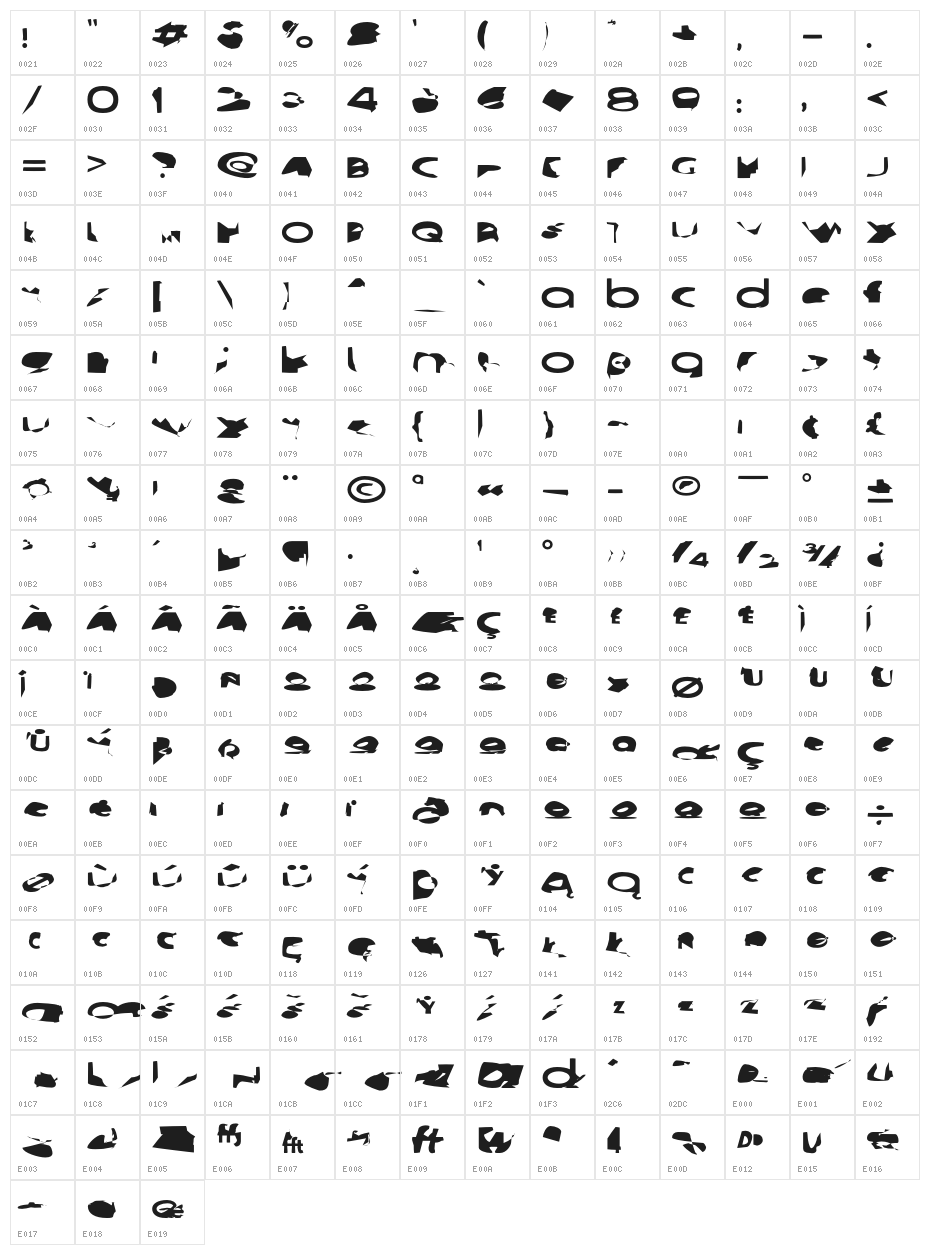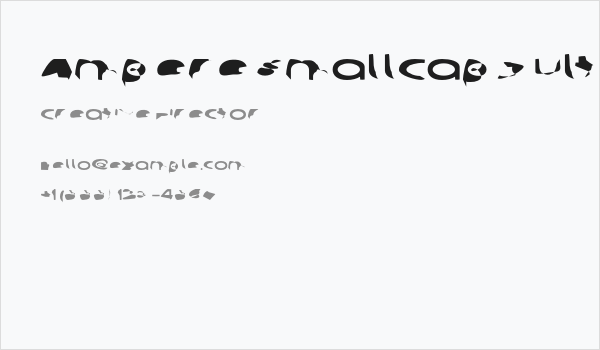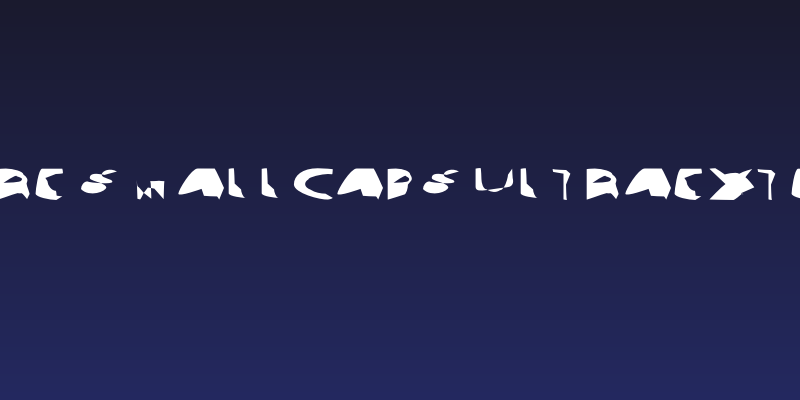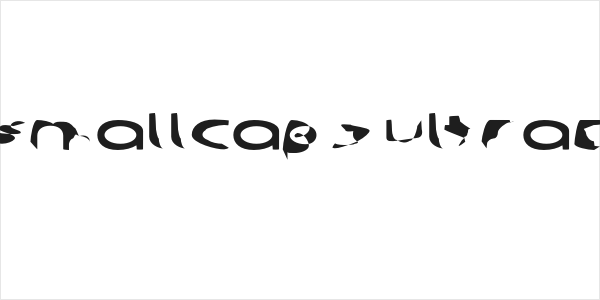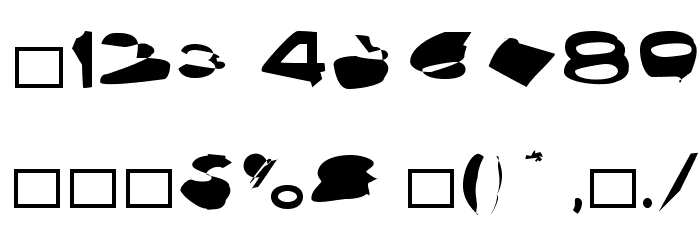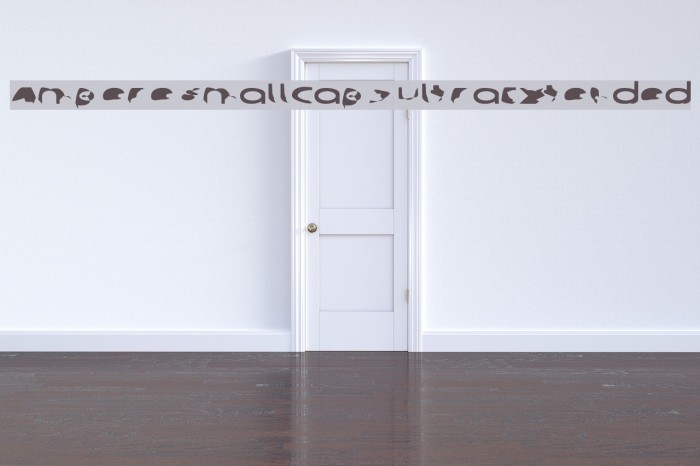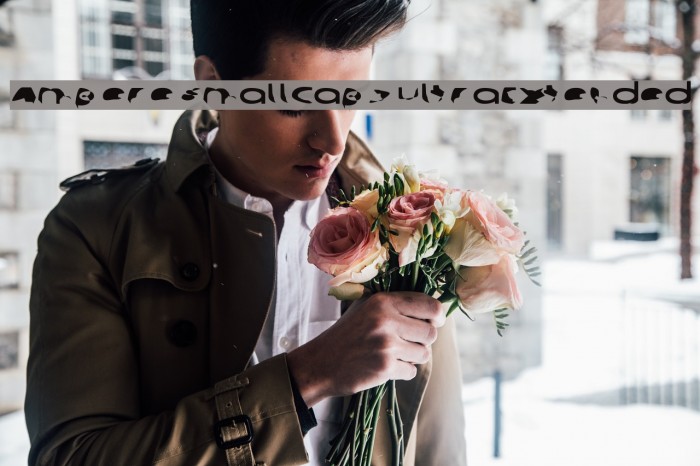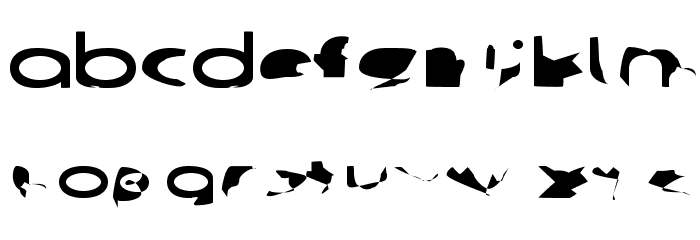
Ampere SmallCaps UltraExtended Font
Ampere SmallCaps UltraExtended Description
This font exhibits a highly stylized and abstract design, characterized by its fragmented and geometric letterforms. Each character appears as if it has been constructed from a series of angular cuts and shapes, creating a sense of dynamism and movement. The uppercase and lowercase letters maintain a consistent style, with sharp edges and irregular forms that challenge traditional readability. Numbers and special characters follow the same design principles, adding to the overall cohesive yet avant-garde aesthetic. This font is ideal for projects that require a bold, artistic statement.
| Overall Style | Modern, Avant-garde |
| Use Case | Logos, Posters, Artistic Displays |
| Proposed Projects | Ideal for modern art projects, avant-garde posters, experimental branding, and unique logo designs. |